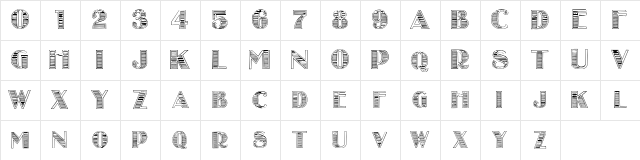
StripesCaps Regular
Design Context for StripesCaps
StripesCaps is a composed and adaptable typeface that performs quietly and consistently across a wide range of design contexts.